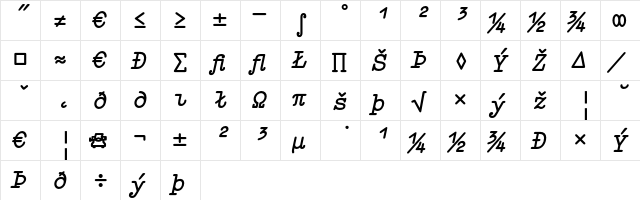
Elementa Expert Bold Italic
Design Context for Elementa Expert Typeface
Elementa Expert takes a measured approach to typography — its balanced proportions and neutral character make it a reliable workhorse for both digital and print work. The slanted form adds forward momentum and visual energy. Its bold stroke weight gives it real presence on the page.
Pro Tip: Use Elementa Expert for emphasis, pull quotes, and subheadings where its slanted energy can add rhythm to the layout.